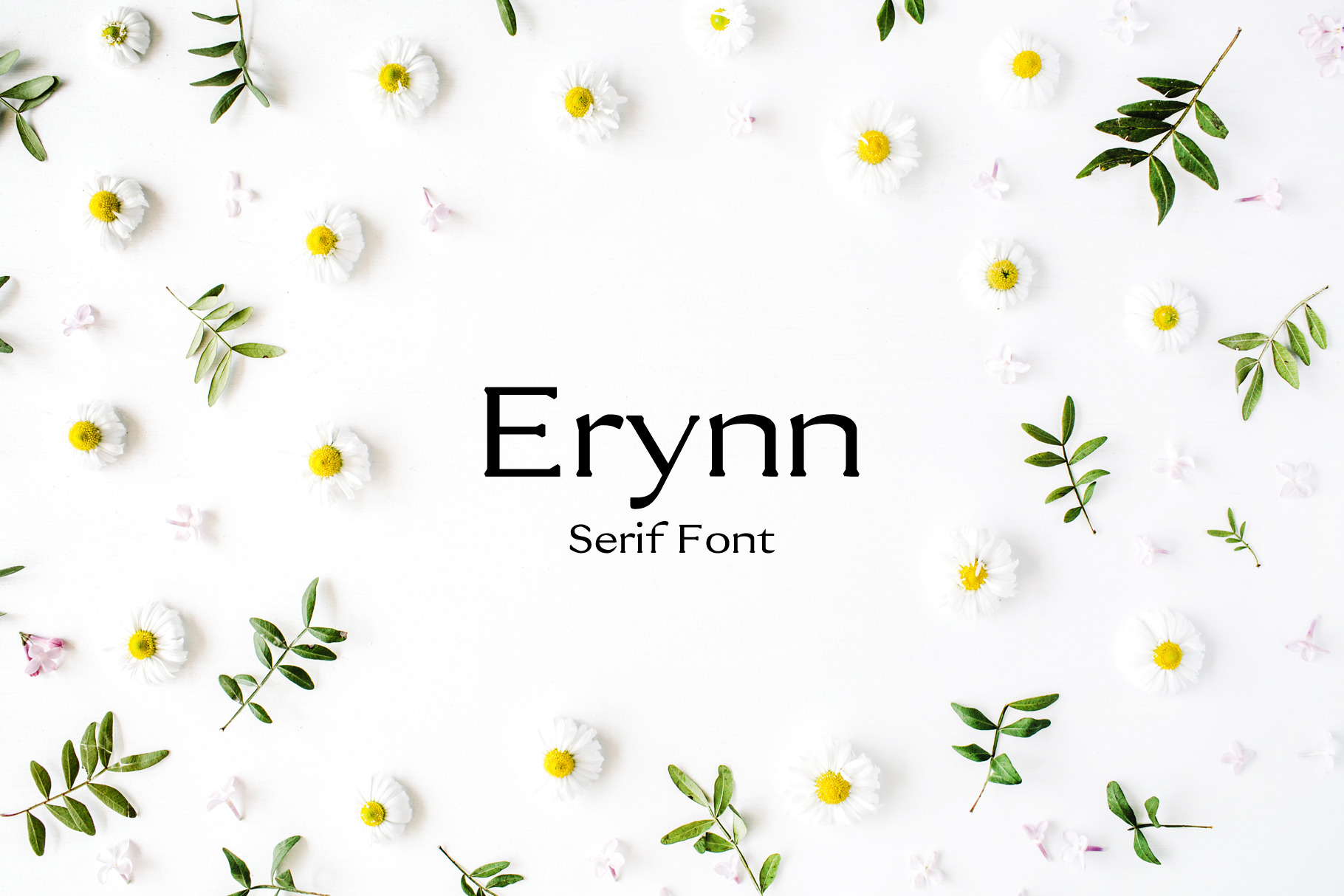
Erynn Serif Font
Erynn Serif Font is a clean minimal single font, It features unique and modern serif look and feel. Perfect for gorgeous logos, titles, web layouts and branding. It looks gorgeous in all caps with a wide-set spacing if you want to try a classy look, or beautiful on its own in capital and lowercase letters for something completely timeless.
Erynn Font Features:
- Uppercase Multilingual Letters
- Lowercase Multilingual Letters
- Non English Characters ( Latin Extended A )